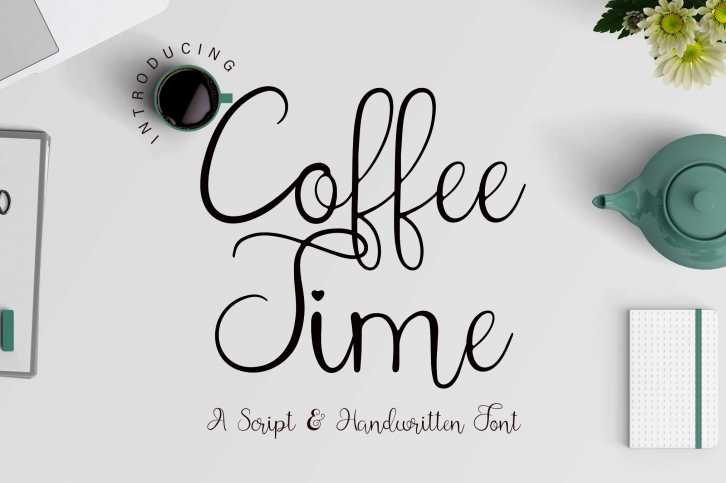
Coffee Time is a script font that was created by paying careful attention to every curve and distance between letters to produce a quality font. It is perfect for your projects such as wedding invitations, t-shirt printing, brands, and much more.